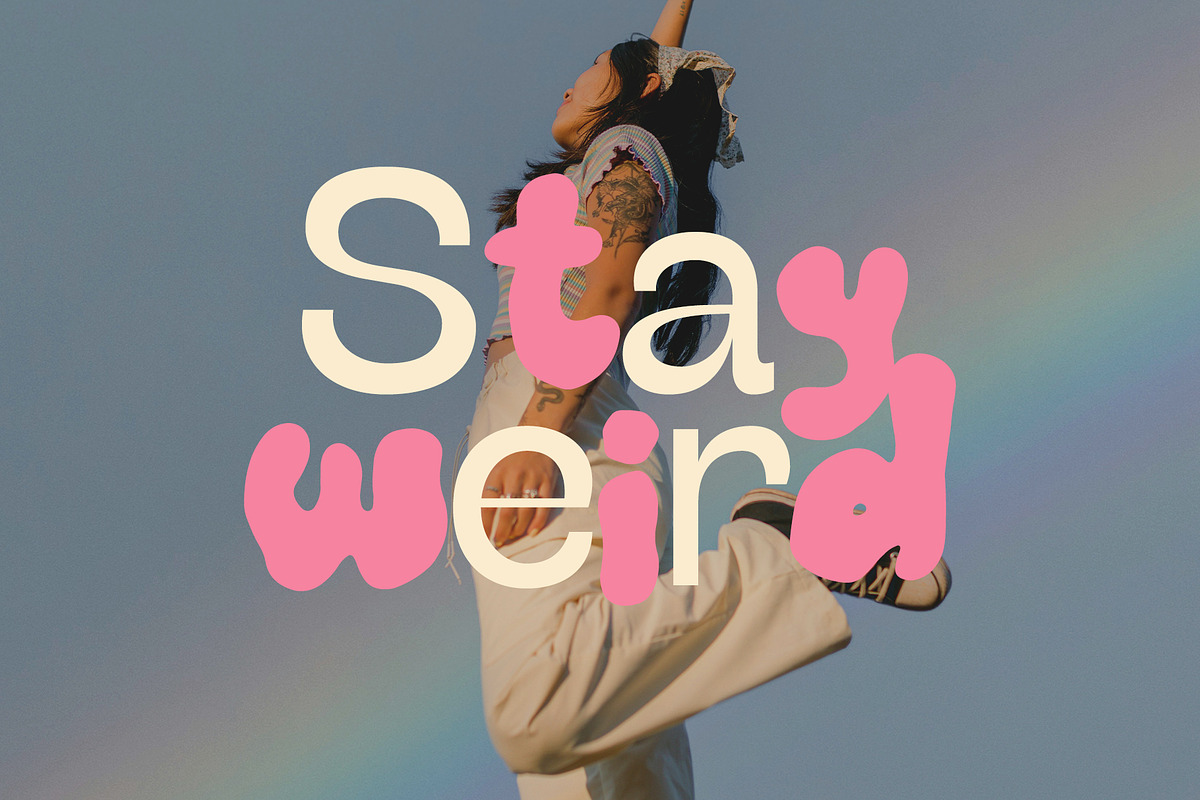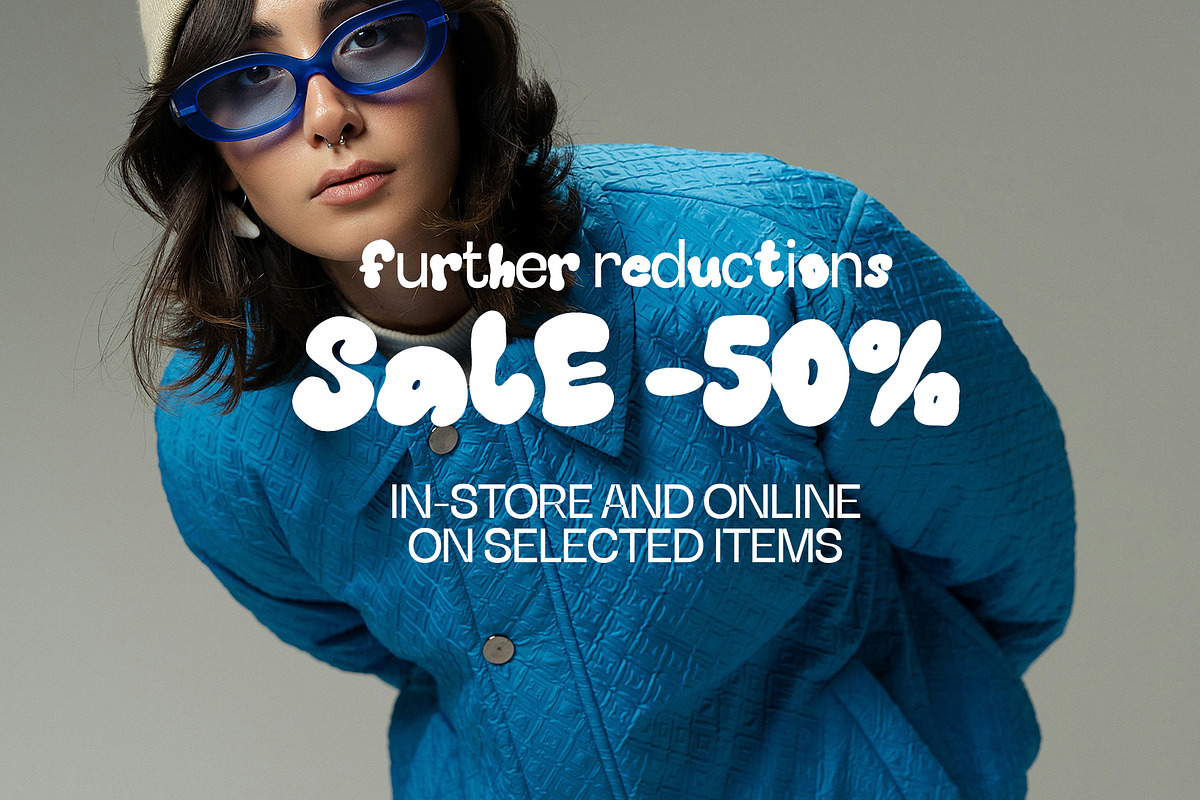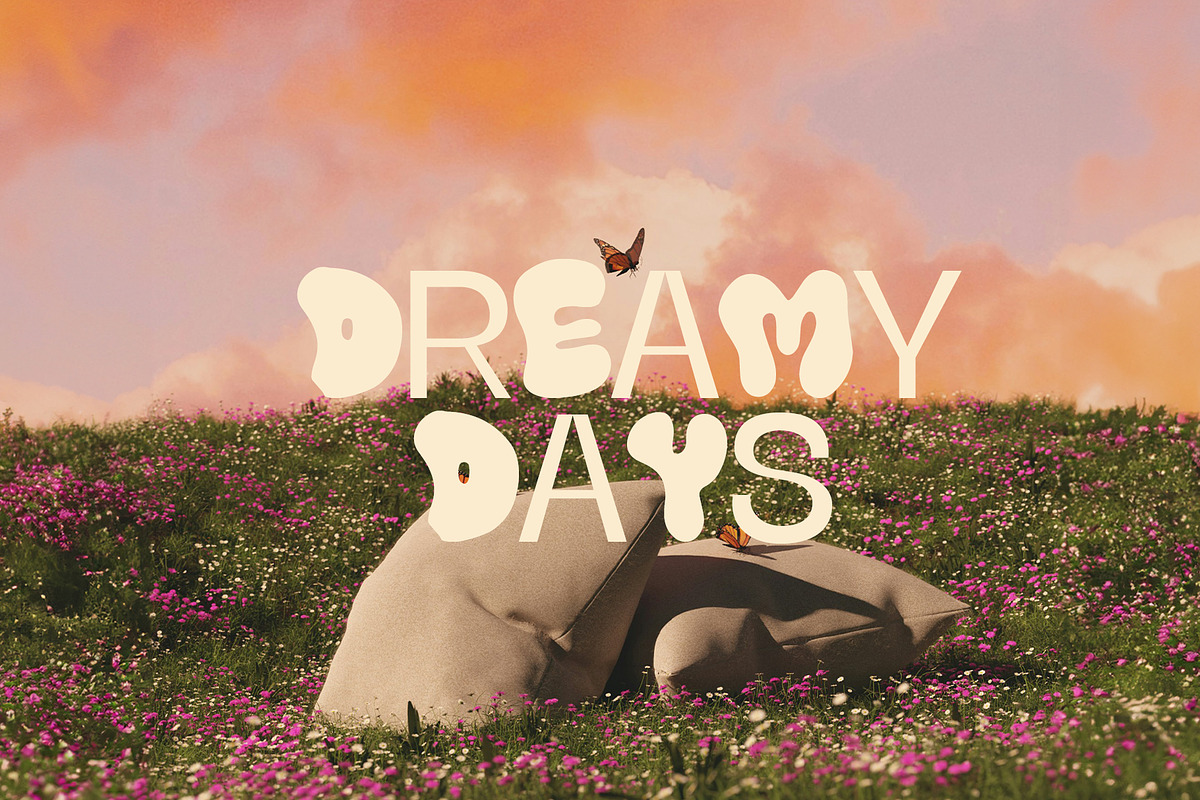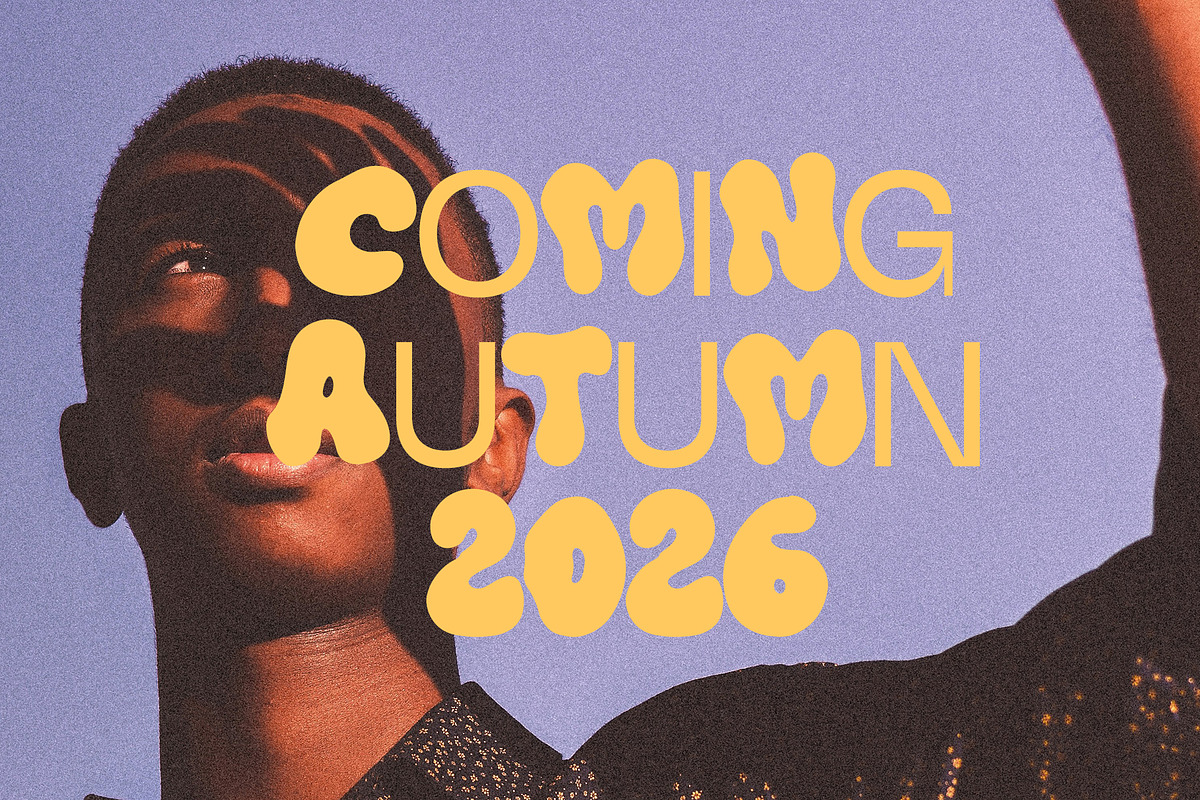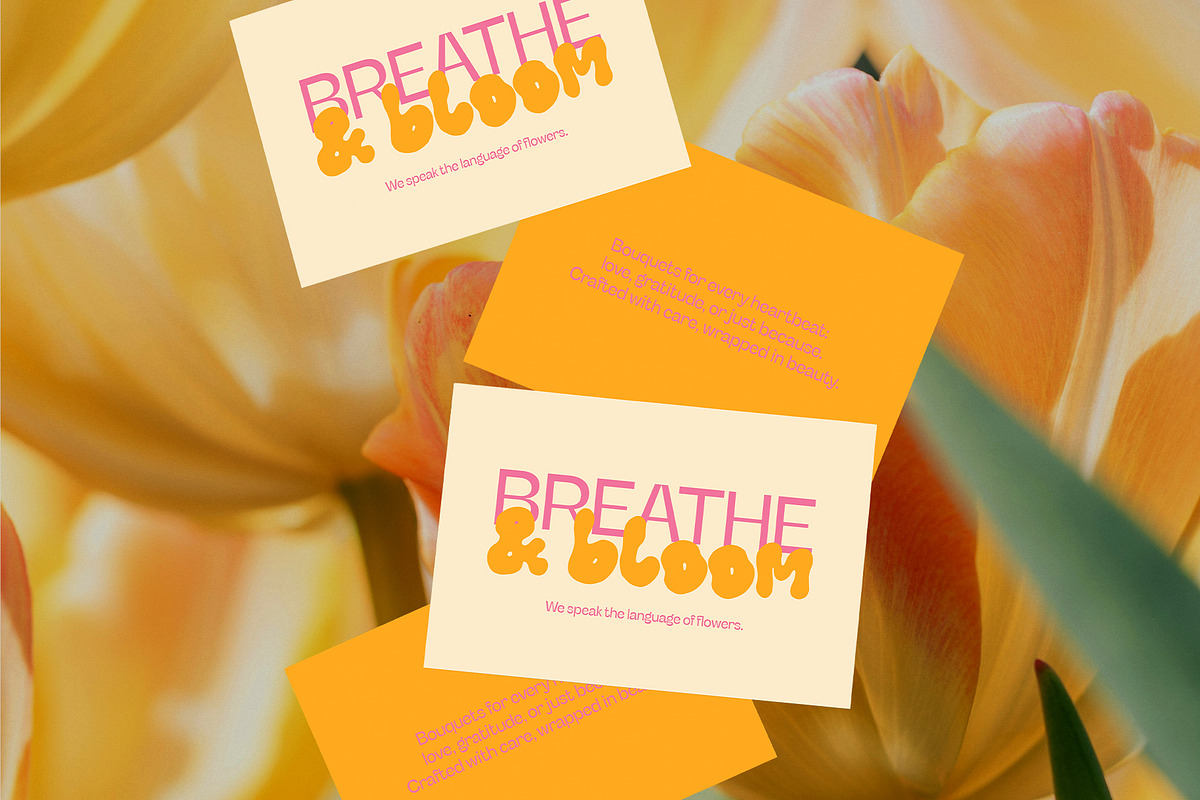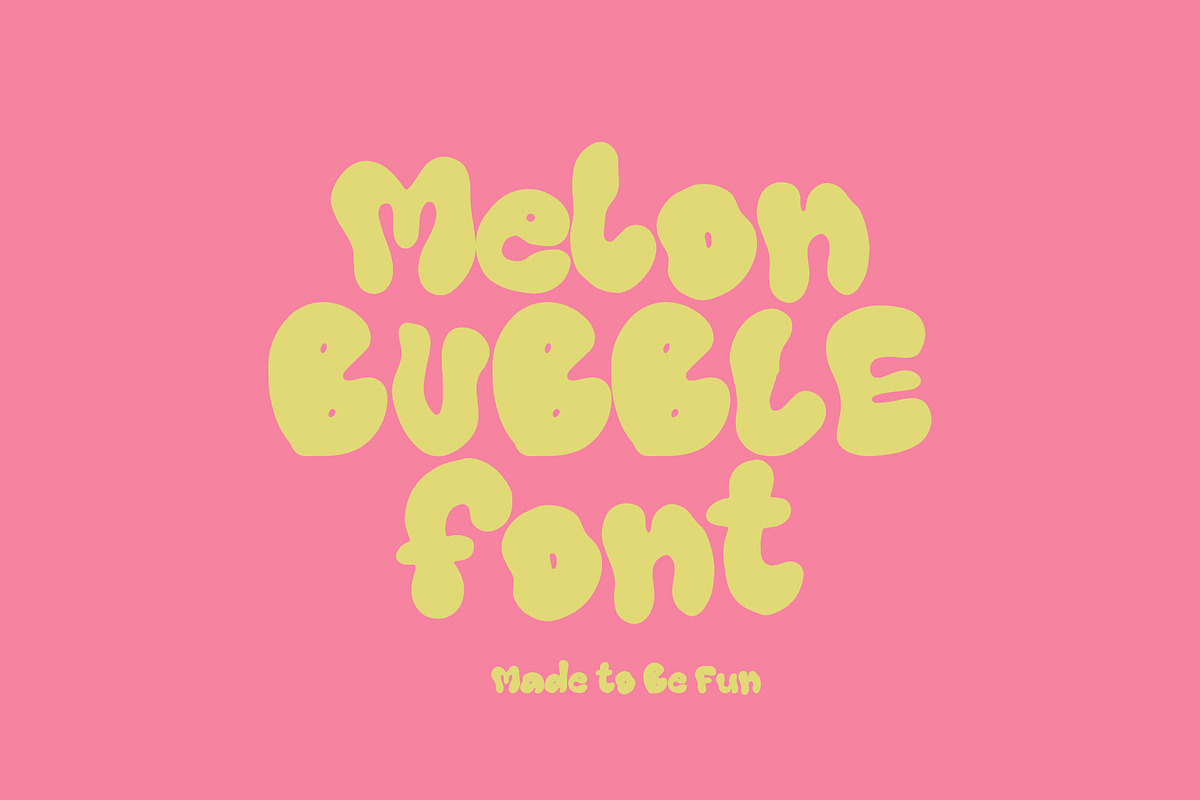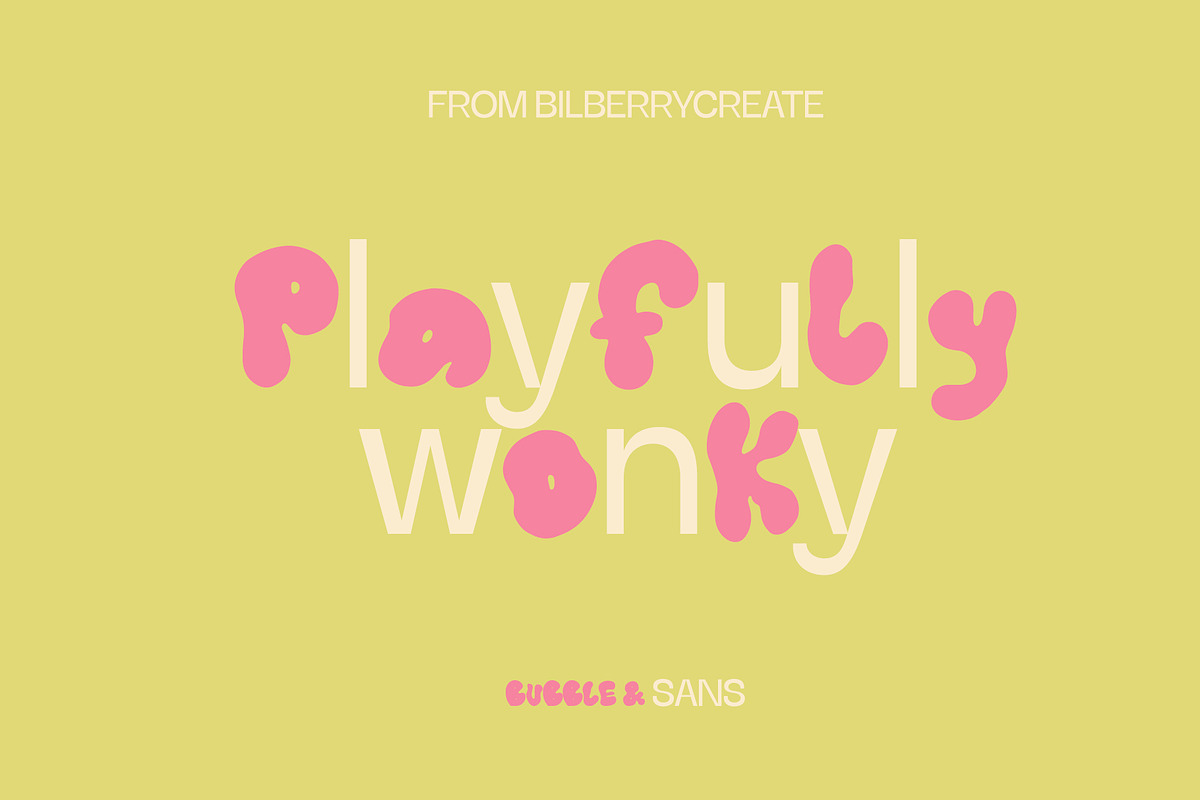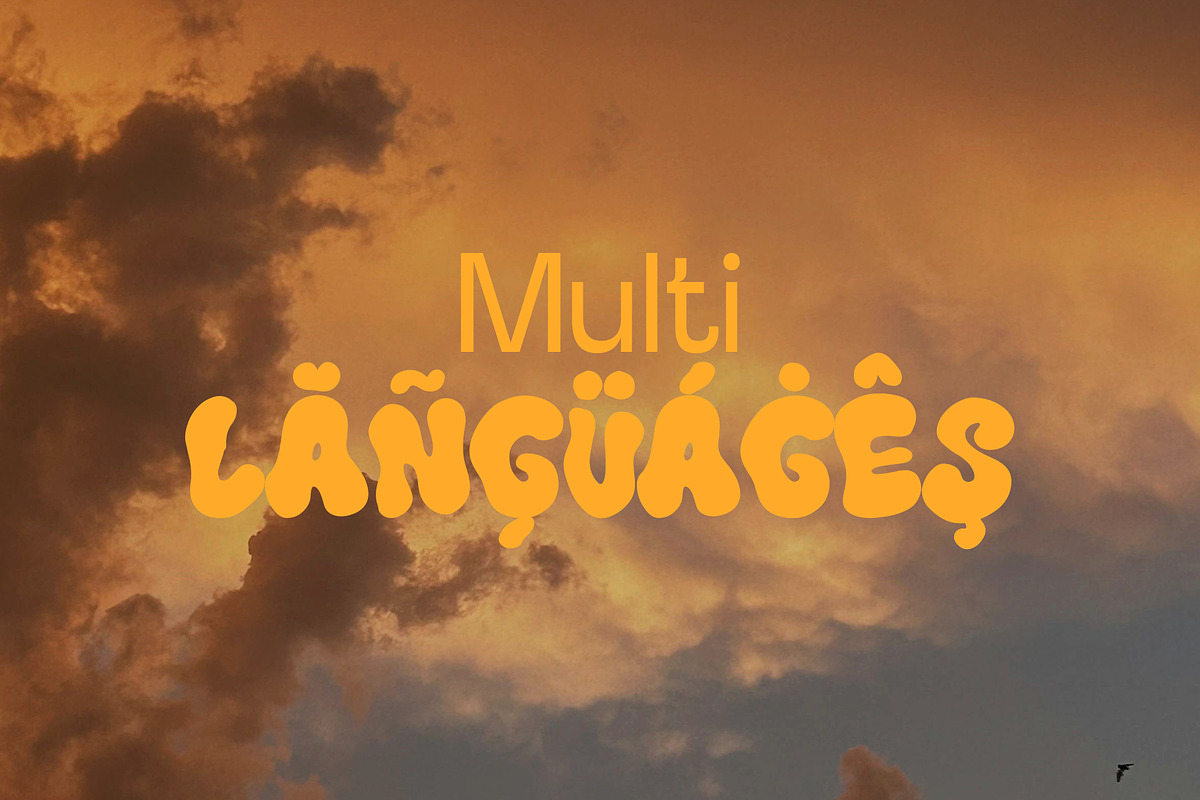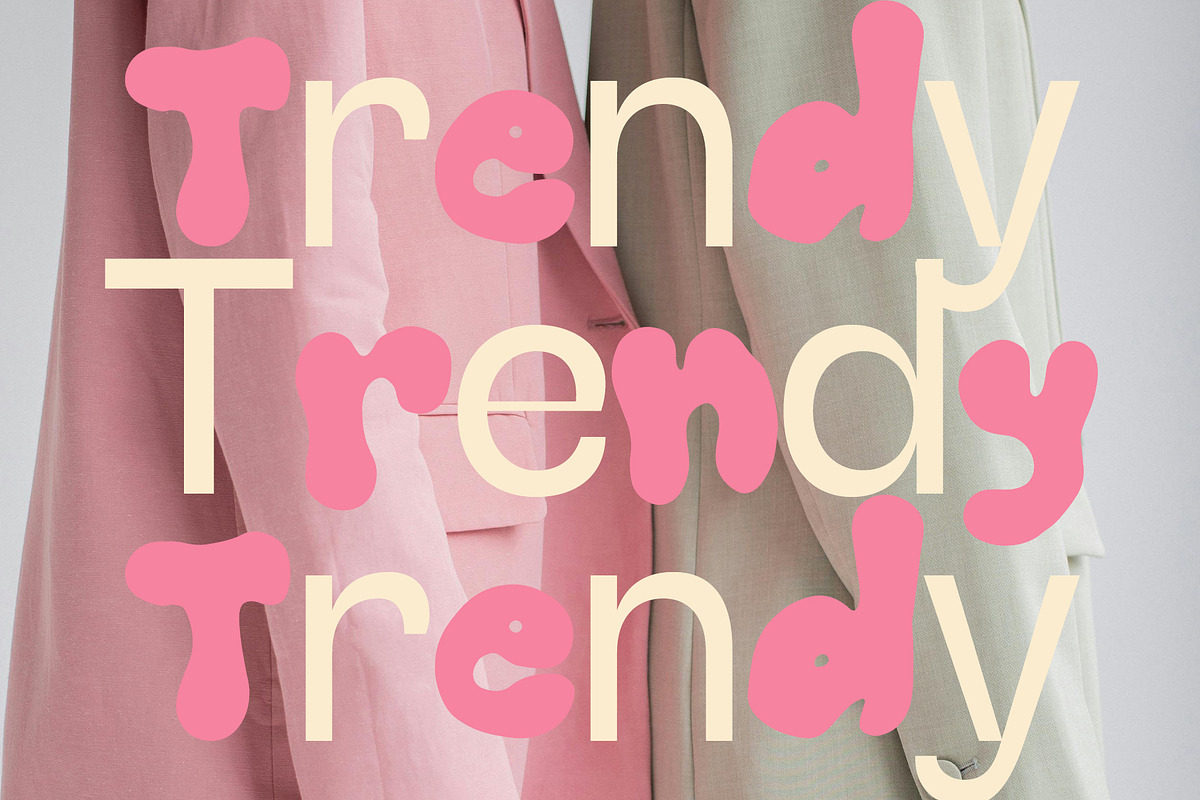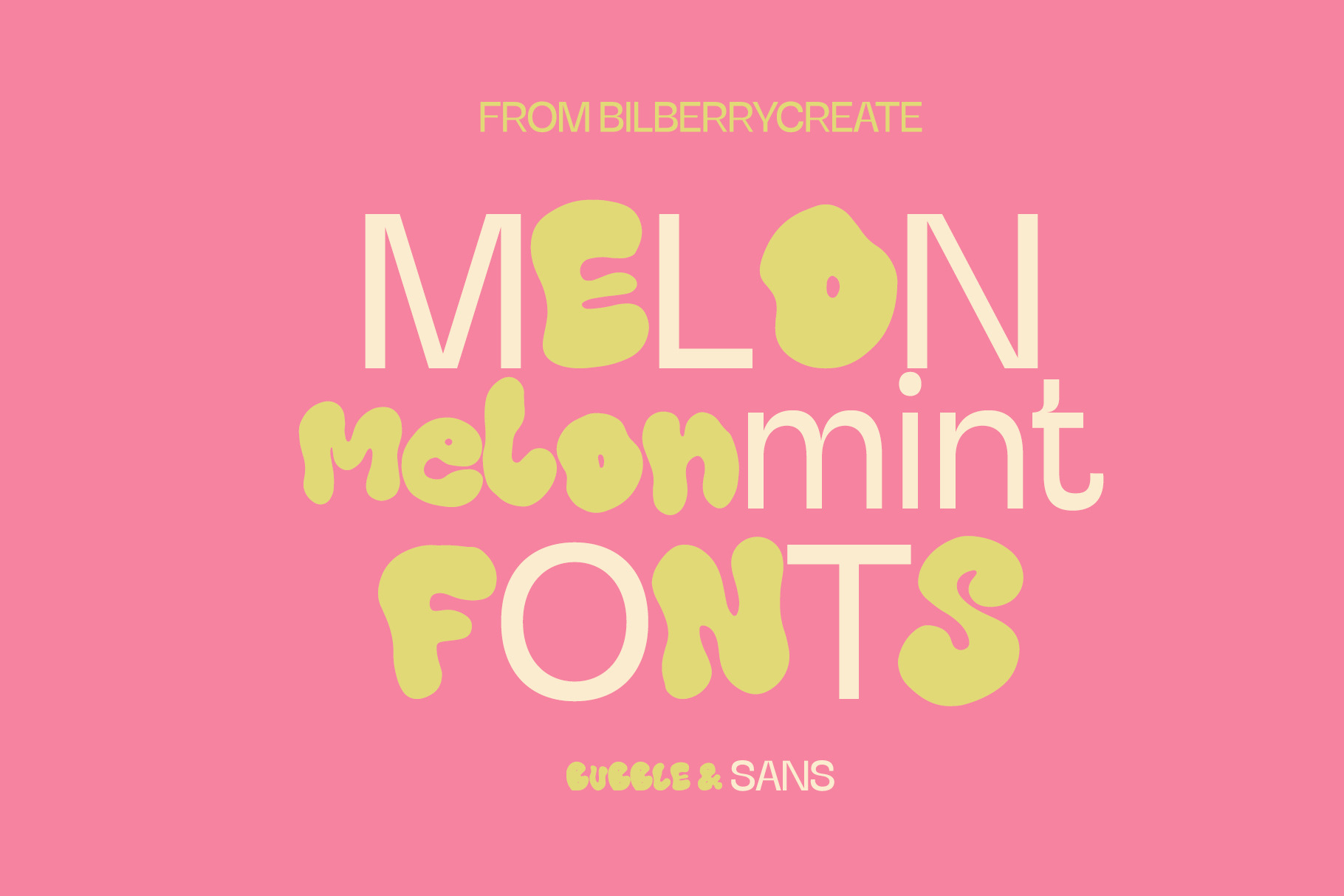
Melon & Mint – A Fresh Font Duo
Melon & Mint – A Fresh Font Duo.
Meet Melon & Mint, a playful and refreshing font combo designed to make your designs pop with personality.
Melon is a juicy, bubbly display font — bold, round, and full of charm. Perfect for fun logos, packaging, quotes, or anything that needs a sweet and friendly vibe.
Mint is a clean, modern sans-serif that brings balance and clarity to the pair. Use it for taglines, body text, captions, or anywhere you need a fresh contrast to the boldness of Melon.
- All caps
- Designed to stand out (even when it shouldn’t) Let your words misbehave — in style.